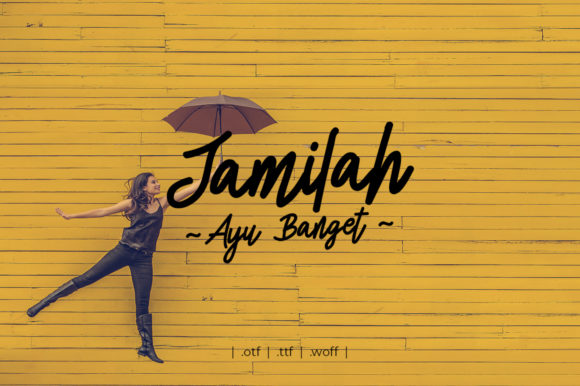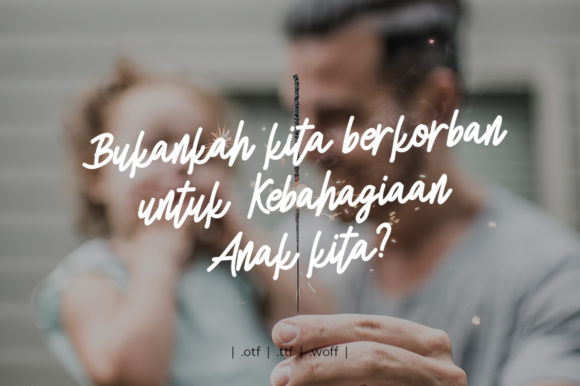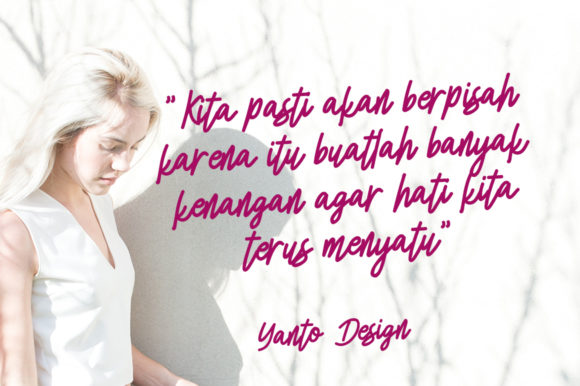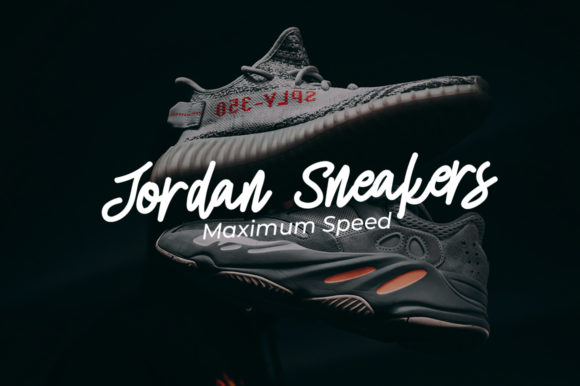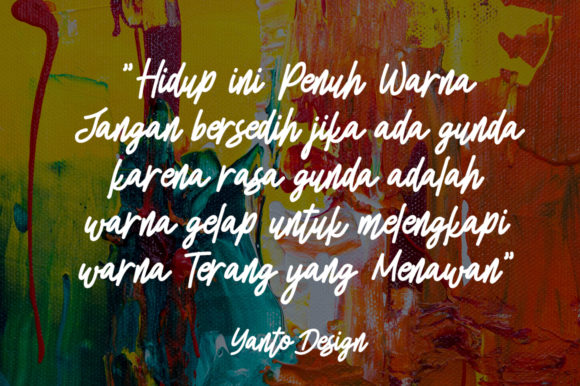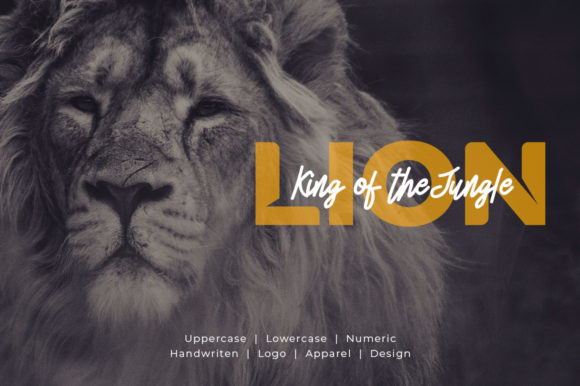
Dzulkifliol Font: A Stylish Homage to Classic Calligraphy
Dzulkifliol font is a stunning handwritten typeface that exudes elegance and charm. This beautiful font is a stylish tribute to the art of classic calligraphy, with its varying baseline and smooth lines that evoke a sense of sophistication and refinement.
The Characteristics of Dzulkifliol Font
Dzulkifliol font boasts a range of characteristics that make it a standout in the world of typography. Its handwritten nature gives it a personal and organic feel, while its smooth lines and flowing curves create a sense of continuity and harmony. The font’s varying baseline adds a touch of whimsy and playfulness, making it perfect for designs that require a bit of personality and flair.
The Inspiration Behind Dzulkifliol Font
The inspiration behind Dzulkifliol font is rooted in the rich tradition of classic calligraphy. The font’s creator drew inspiration from the elegant and refined scripts of the past, reinterpreting them in a modern and stylish way. The result is a font that feels both nostalgic and contemporary, making it perfect for designers and crafters looking to add a touch of classic elegance to their work.
Uses for Dzulkifliol Font
Dzulkifliol font is a versatile typeface that can be used in a wide range of design applications. Its elegant and refined nature makes it perfect for:
- Digital and print advertising
Why Designers and Crafters Love Dzulkifliol Font
Dzulkifliol font has quickly become a favorite among designers and crafters, and for good reason. Its unique combination of elegance and playfulness makes it a joy to work with, and its versatility ensures that it can be used in a wide range of design applications. Here are just a few reasons why designers and crafters love Dzulkifliol font:
- Elegance and sophistication: Dzulkifliol font adds a touch of classic elegance to any design, making it perfect for projects that require a sense of refinement and luxury.
- Personality and whimsy: The font’s varying baseline and smooth lines give it a playful and charming nature, making it perfect for designs that require a bit of personality and flair.
- Versatility: Dzulkifliol font can be used in a wide range of design applications, from wedding invitations to branding and packaging design.
Tips for Using Dzulkifliol Font
To get the most out of Dzulkifliol font, here are a few tips to keep in mind:
- Use it sparingly: Dzulkifliol font is a statement typeface, so use it sparingly to add emphasis and elegance to your design.
- Experiment with colors: The font’s smooth lines and flowing curves look beautiful in a range of colors, so don’t be afraid to experiment and find the perfect hue for your design.
- Pair it with contrasting fonts: Dzulkifliol font pairs beautifully with contrasting fonts, such as bold sans-serifs or elegant serifs.
Dzulkifliol font is a stunning handwritten typeface that feels equally charming and elegant. Its smooth lines, flowing curves, and varying baseline make it a stylish homage to classic calligraphy, while its versatility and playfulness ensure that it can be used in a wide range of design applications. Whether you’re a designer, crafter, or simply someone who appreciates beautiful typography, Dzulkifliol font is sure to delight.